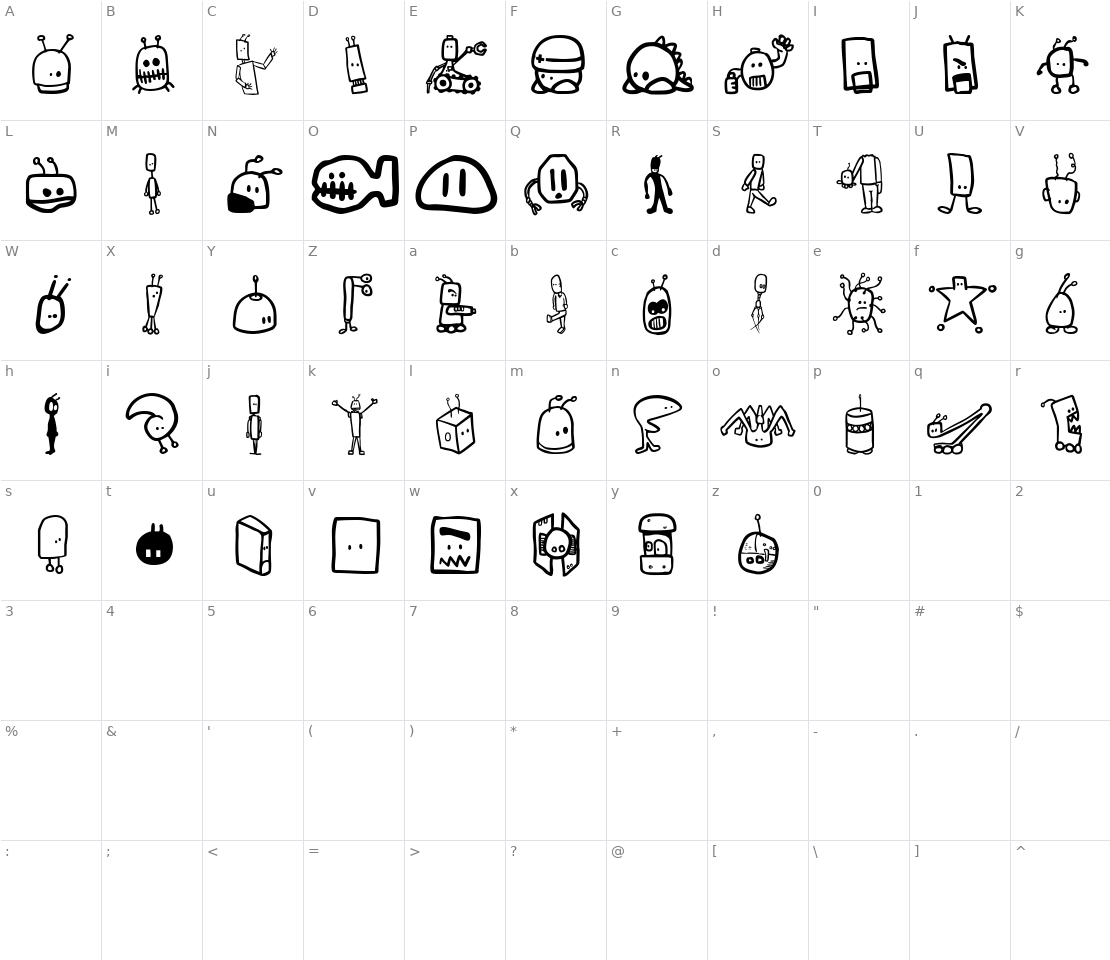
Tombots
Tombots is a quirky dingbat-style font from Divide by Zero filled with hand-drawn robots, monsters, and little cartoon characters rather than traditional letterforms. Each glyph has a loose, doodled quality that feels sketched in a notebook margin, giving the set a playful, lo-fi charm. Useful for spot illustrations, kid-friendly designs, or adding offbeat personality to layouts without reaching for separate icon files.